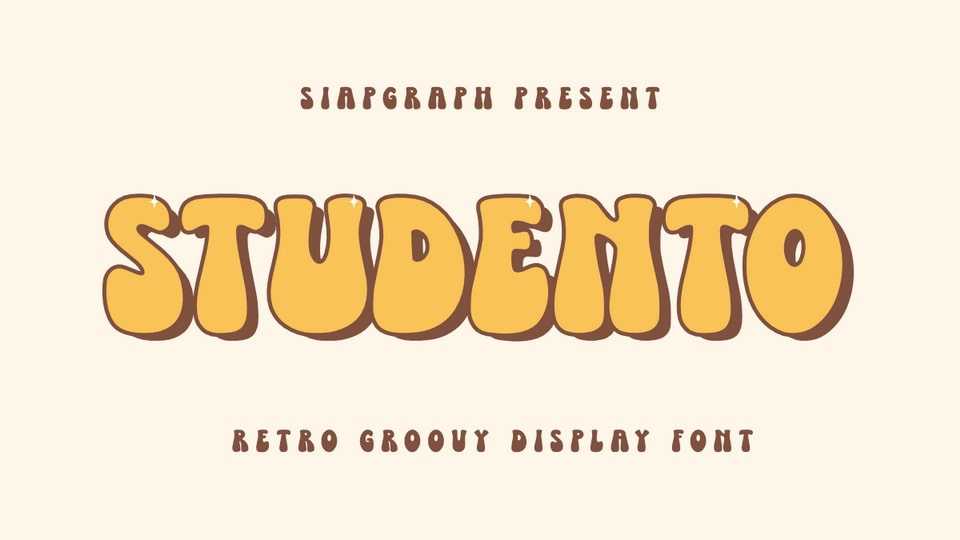
Download Studento font, a groovy retro display typeface that transports your designs back to the vibrant and energetic era of the 70s.
Designer: SiapGraph